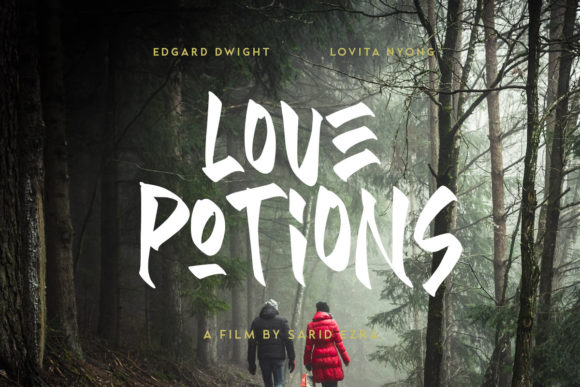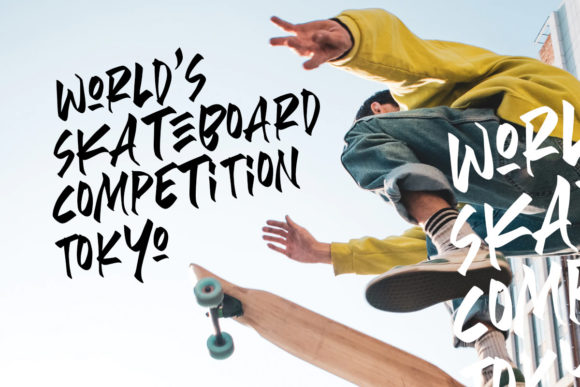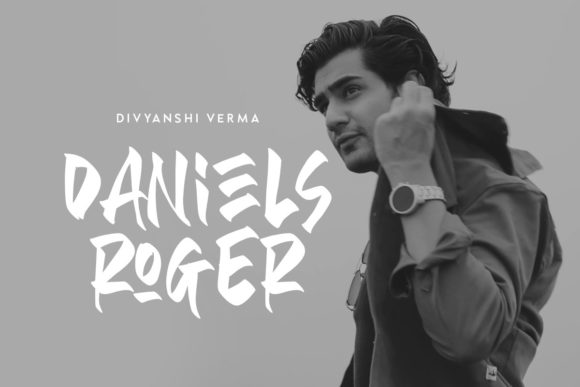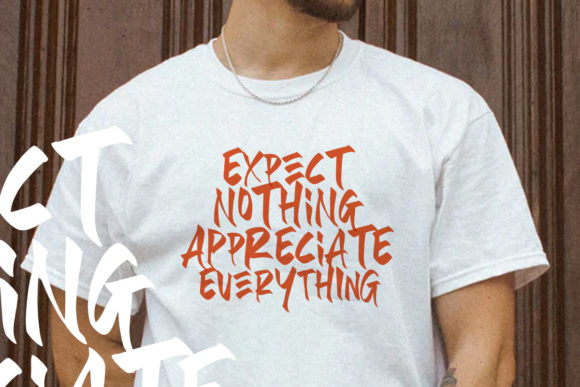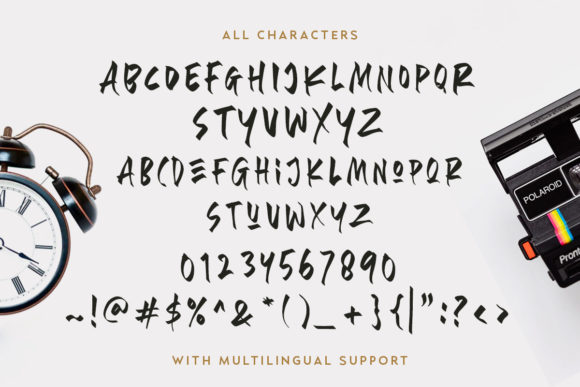
Introducing Designors Font: Elevate Your Designs with a Freestyle Brushed Display Font
Are you tired of using the same old fonts in your designs? Look no further! Designors Font is here to revolutionize the way you create stunning visuals. This freestyle brushed display font is designed to make your projects stand out with its stylish and cool appearance. Whether you’re working on letterheads, titles, stationery, or any other crafty idea, Designors Font is the perfect choice.
What Makes Designors Font Unique?
Designors Font boasts an original look that sets it apart from other fonts. Its freestyle brushed design gives it a unique, hand-crafted feel that’s perfect for designers and crafters who want to add a personal touch to their work. The font’s stylish and cool appearance makes it versatile enough to be used in a wide range of projects, from modern and trendy to vintage and rustic.
Perfect for Crafty Ideas
Designors Font is ideal for crafty ideas that require a personal touch. Whether you’re creating:
- Letterheads and titles that make a statement
- Stationery that stands out from the crowd
- Posters and flyers that grab attention
- Logos and branding materials that reflect your personality
Designors Font is the perfect choice. Its unique design ensures that your projects will look stylish and cool, making it perfect for crafty ideas that require a personal touch.
Key Features of Designors Font
Here are some key features that make Designors Font a must-have for designers and crafters:
- Freestyle Brushed Design: Gives your projects a unique, hand-crafted feel
- Stylish and Cool Appearance: Makes your projects stand out from the crowd
- Versatile: Suitable for a wide range of projects, from modern and trendy to vintage and rustic
Why Choose Designors Font?
With so many fonts available, why choose Designors Font? Here are a few reasons:
- Unique Design: Stand out from the crowd with a font that’s truly one-of-a-kind
- High-Quality: Professionally designed to ensure crisp and clear text
- Easy to Read: Despite its unique design, Designors Font is easy to read, making it perfect for body text and headlines